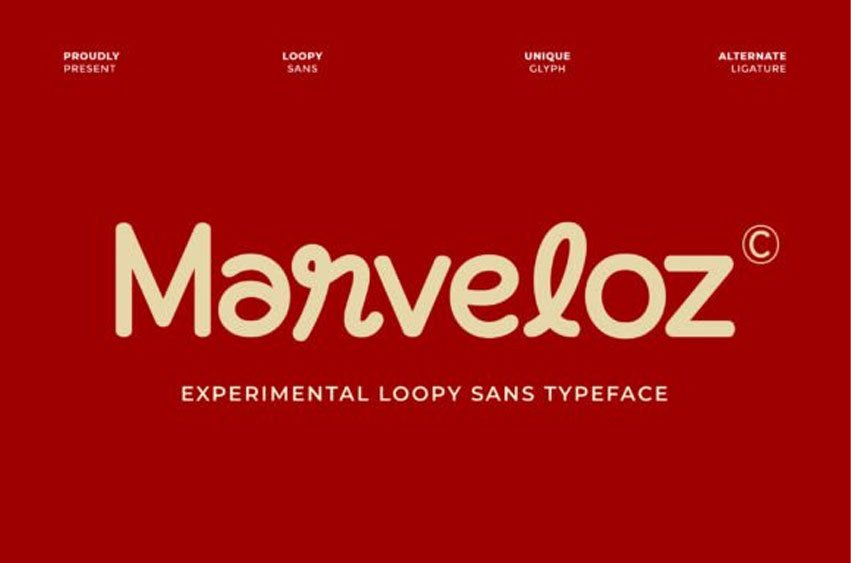
Marveloz Font is an experimental loopy sans typeface that offers a delightful blend of simplicity and highly memorable, charming character.
It is defined by its monolinear, smoothly rounded structure (suggesting a continuous stroke) combined with unexpected, playful internal loops and unique ligature combinations (notice the signature closed ‘o’ and the loopy ‘r’).
This font’s uniqueness lies in its ability to feel simultaneously modern, organic, and highly friendly. Marveloz is an excellent choice for fun, youthful branding, innovative food packaging, playful app design, candy wrappers, children’s products, and any brand seeking a distinctive, quirky, and approachable logo or headline.
It’s typography that truly sparks joy and curiosity.
The Marveloz font is also PUA-encoded, ensuring effortless access to all glyphs, swashes, and alternate characters to help you customize your creations with ease.